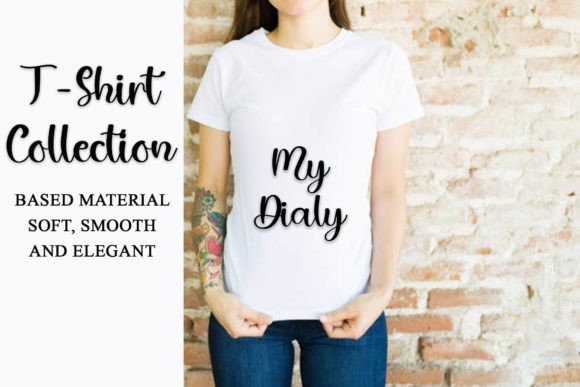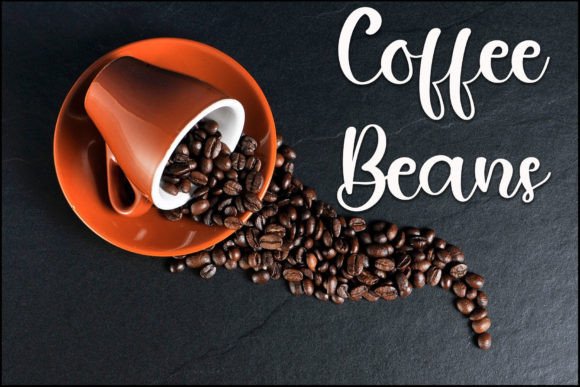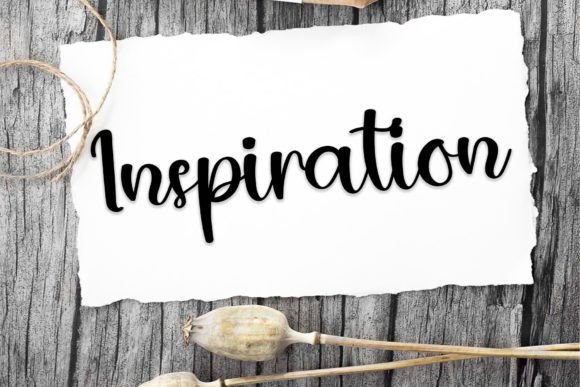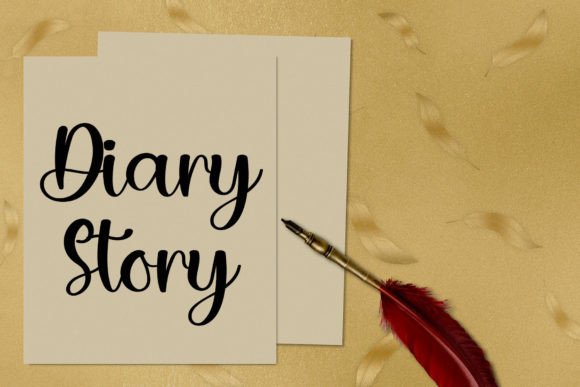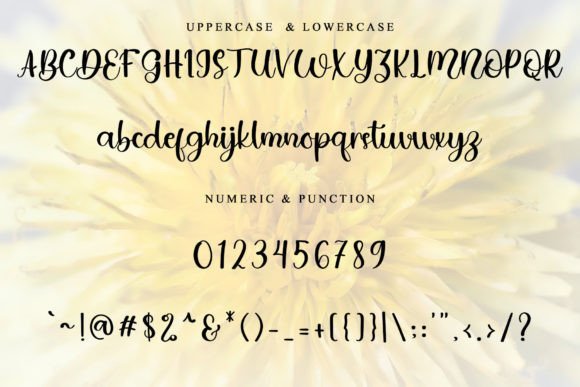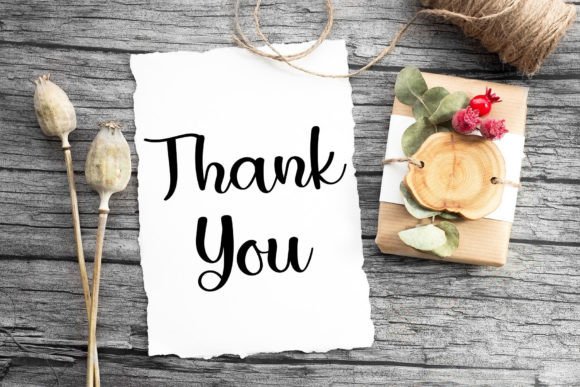
The Magical World of Berry Font: Elevate Your Designs with Elegance
I’ll never forget the moment I stumbled upon the perfect font for a client’s wedding invitation project. I had been searching for what felt like an eternity, trying out font after font, but nothing seemed quite right. That was until I discovered Berry Font – a game-changing, magical script font that added a touch of elegance to the design. In this article, I’ll share my love for Berry Font, its features, and how to make the most of it in your designs.
My Love Affair with Berry Font
Berry Font is more than just a beautiful script font – it’s a creative partner that helps bring your ideas to life. Here are a few things I love about it:
• Elegant and Timeless Style: Berry Font boasts an incredibly distinct and timeless style that adds a touch of sophistication to any design.
• Highly Versatile: Whether you’re creating Instagram graphics, calligraphy scripts for DIY projects, or elegant wedding invitations, Berry Font adapts seamlessly.
• 💫 OpenType Features: Berry Font comes with a range of OpenType features, including glyphs and stylistic alternates, giving you endless creative possibilities.
A Few Quirks to Keep in Mind
While Berry Font is an amazing addition to any design toolkit, there are a few quirks to be aware of:
• 🤔 Kerning and Tracking: As with any script font, you may need to adjust the kerning and tracking to ensure optimal readability.
• ⚠️ Glyph Compatibility: Some glyphs might not work perfectly on all platforms or software, so be sure to test them before finalizing your design.
The Story Behind Berry Font
Berry Font was created with a passion for calligraphy and a desire to bring elegance to everyday designs. Its creator aimed to craft a font that would be both timeless and versatile, perfect for a wide range of creative projects. Inspired by classic calligraphy, Berry Font combines traditional techniques with modern sensibilities.
What makes Berry Font unique? Berry Font’s unique blend of elegance and versatility, along with its extensive OpenType features, sets it apart.
Is Berry Font suitable for body text? While beautiful, Berry Font is best used for headings and creative projects due to its script nature and potential readability issues in long texts.
With Berry Font, you can elevate your designs and bring a touch of magic to your creative projects. Its elegant style, versatility, and extensive features make it a valuable addition to any design toolkit.